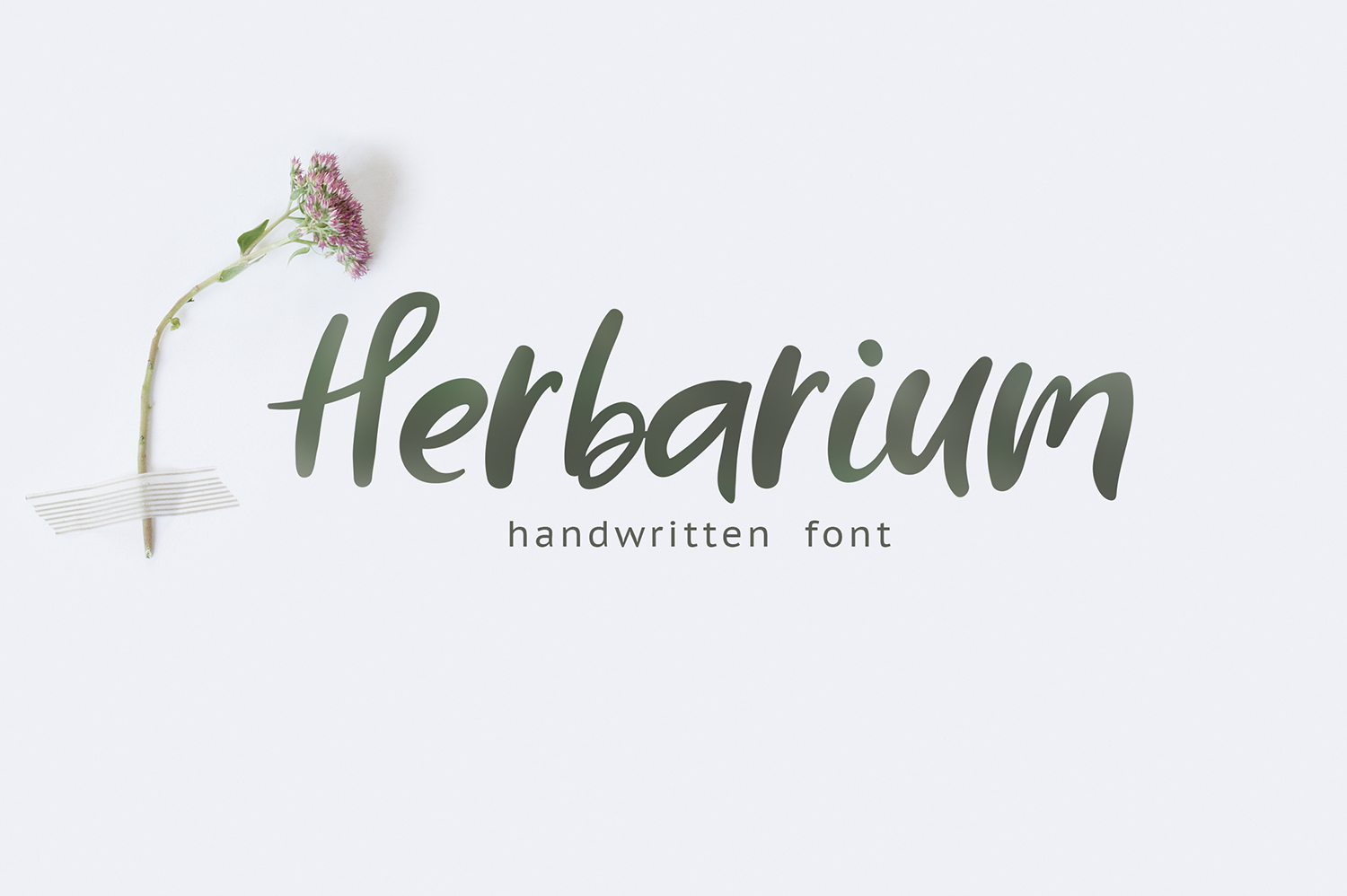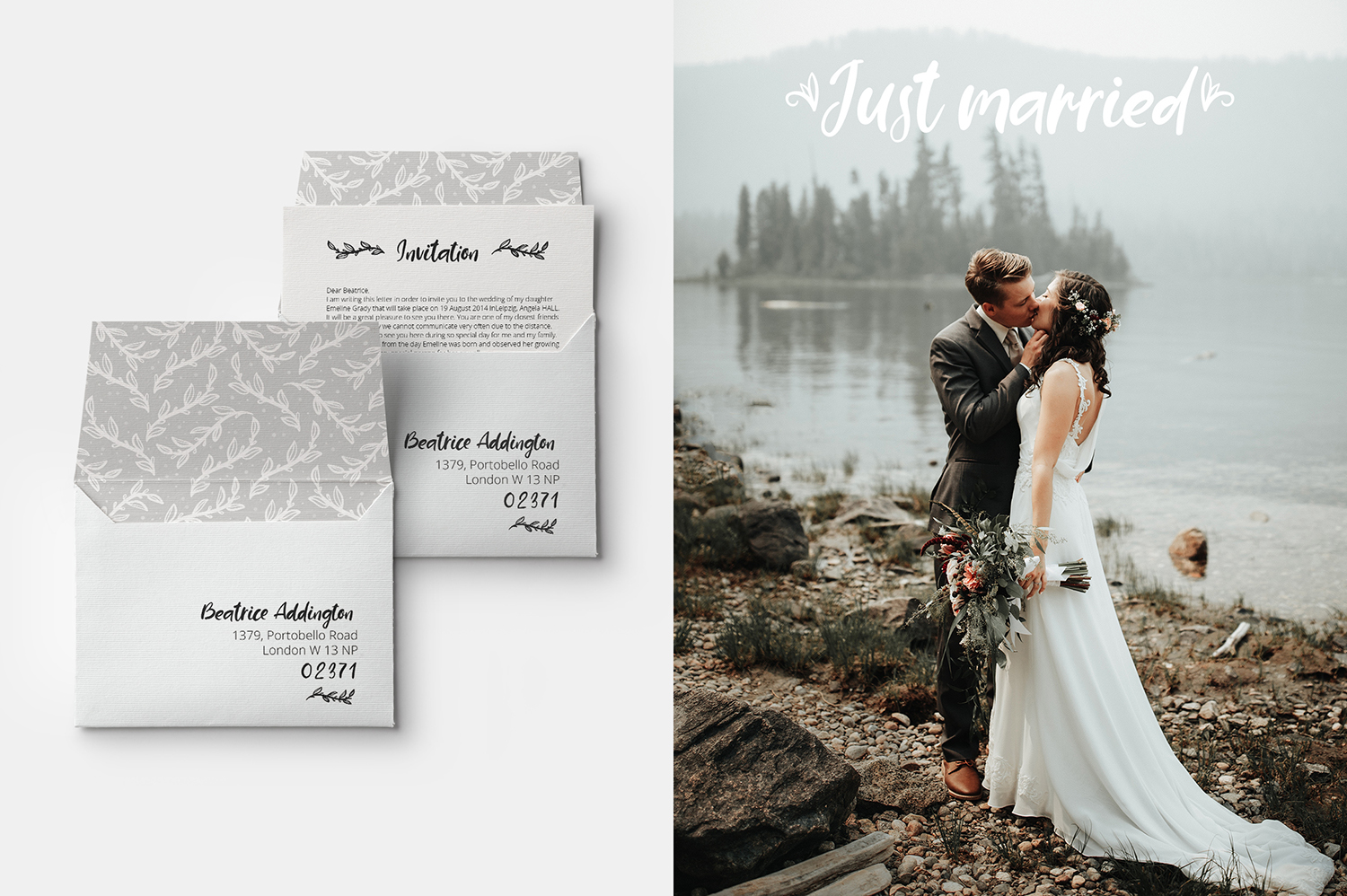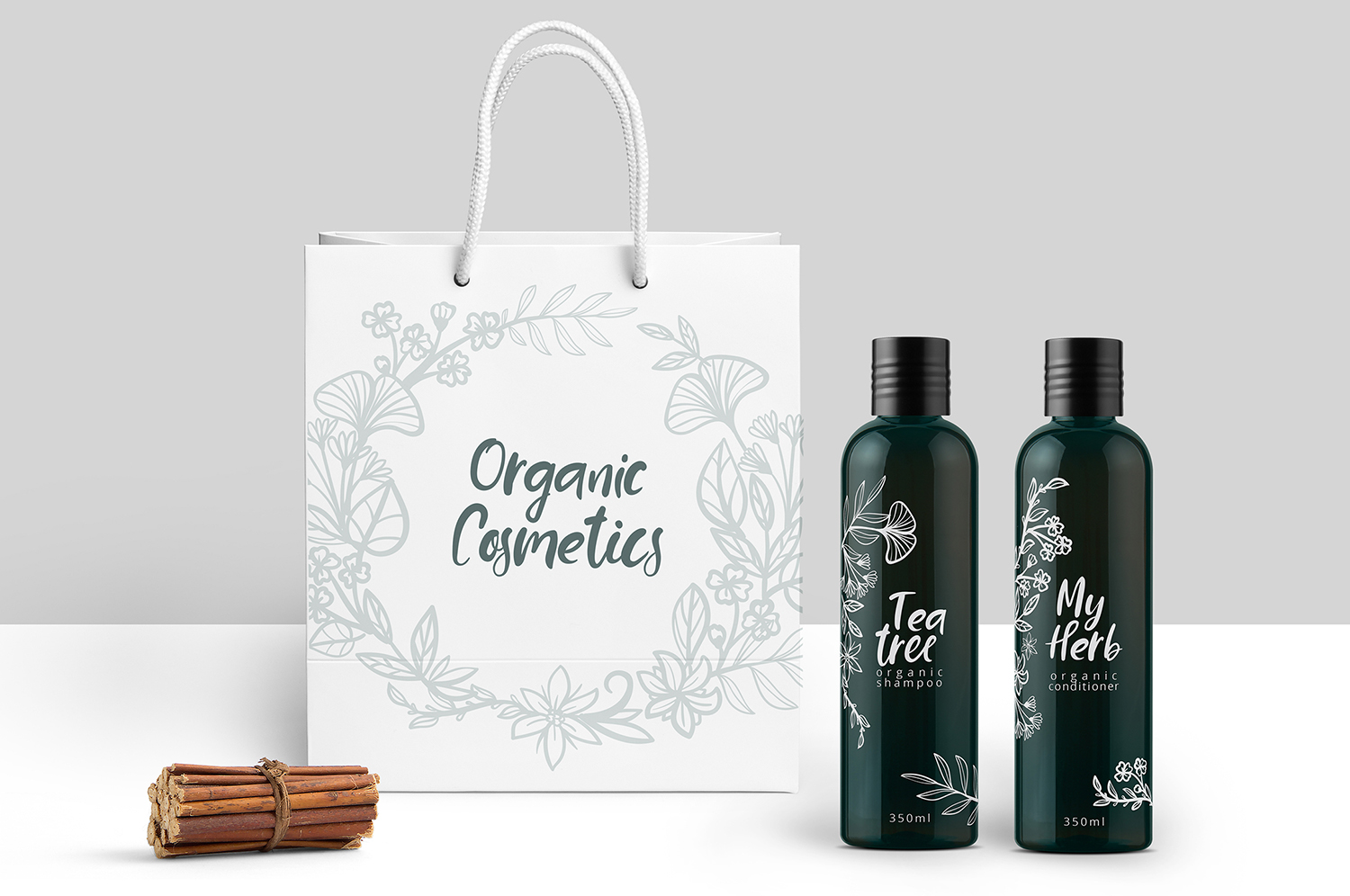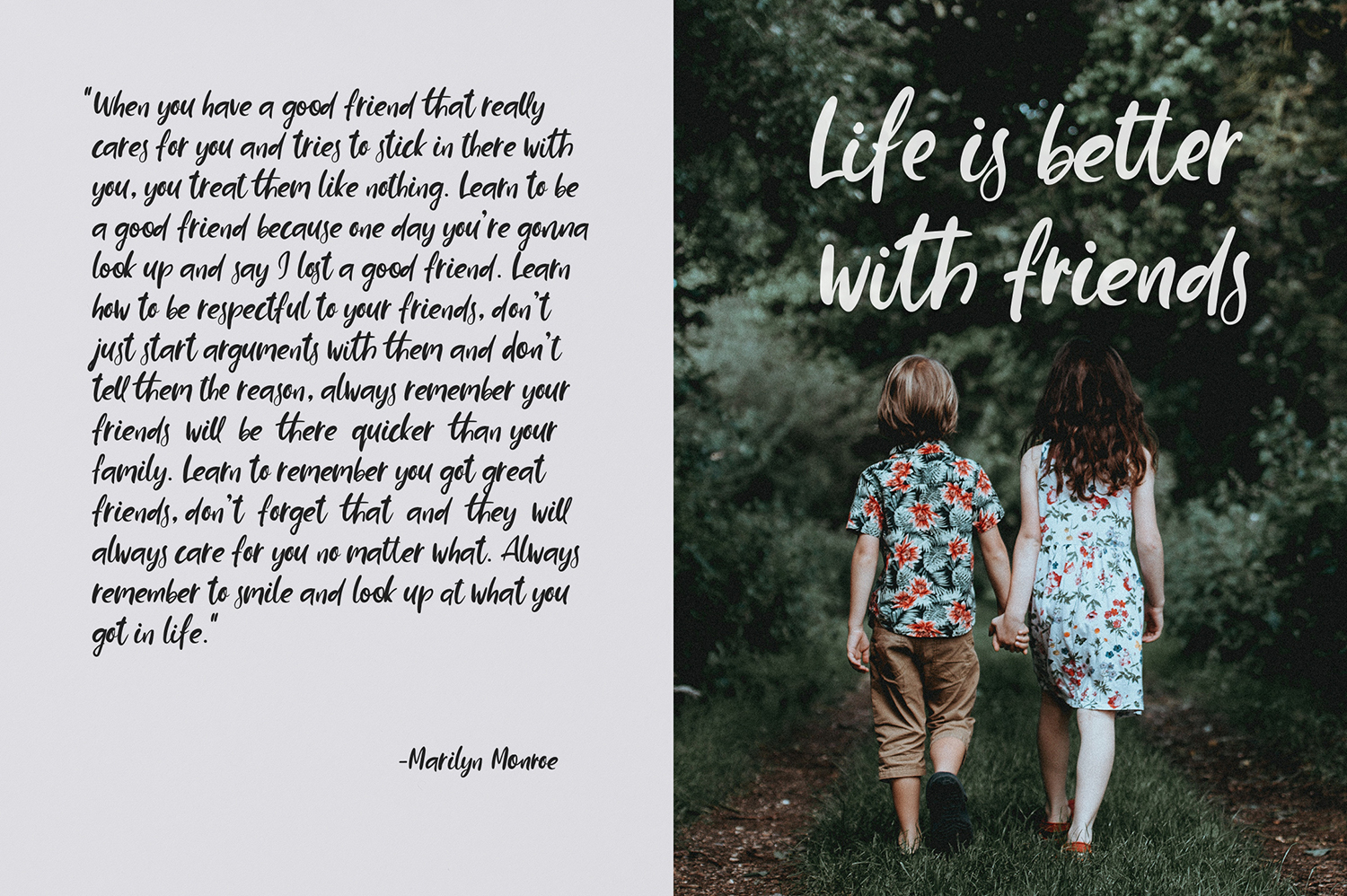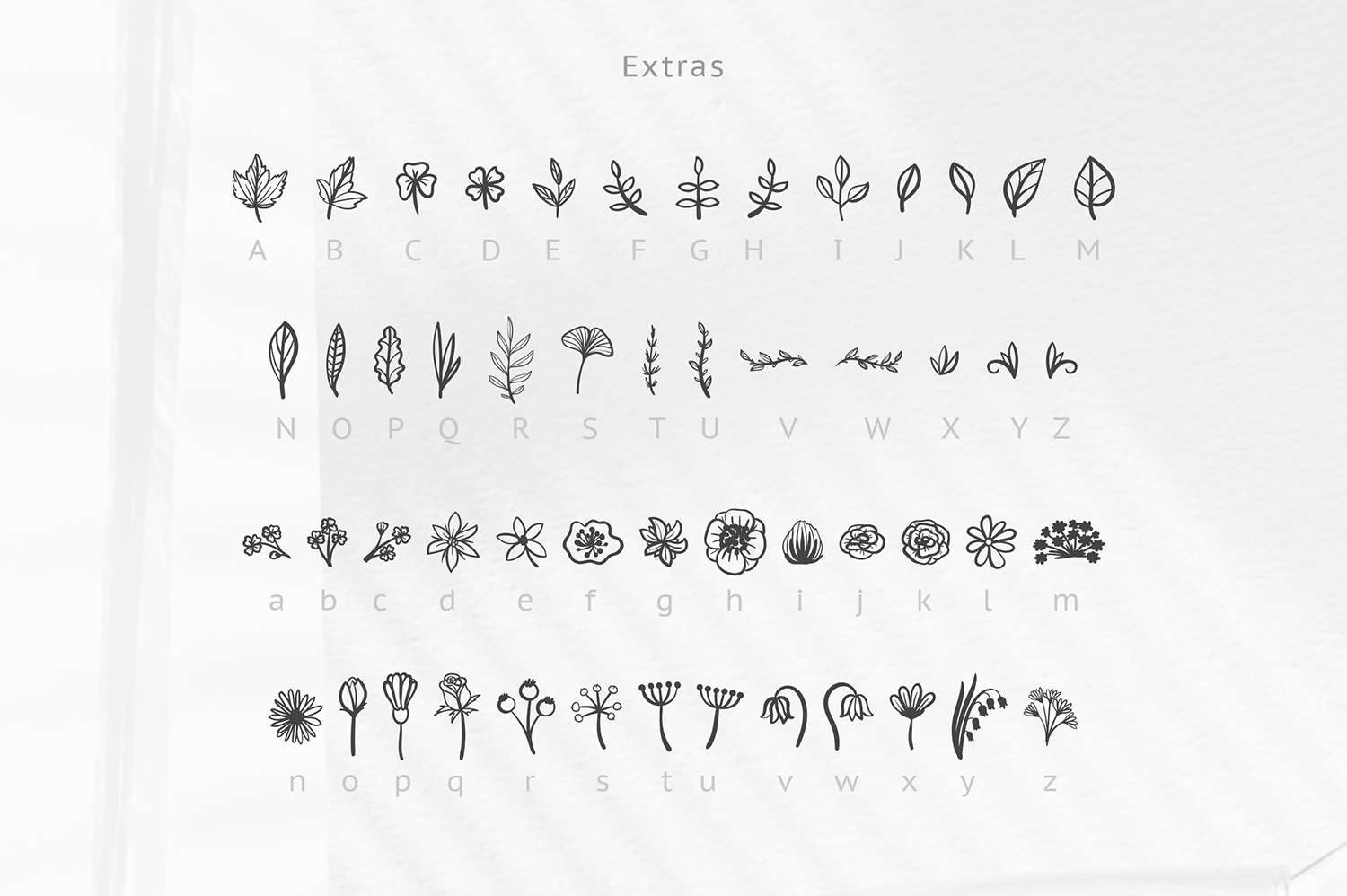
Herbarium Free Font
Herbarium Free Font is a handwritten font that features an elegant calligraphic style and a set of alternate lowercase letters to help make your text look realistic. This font will help you create unique design projects and improve your professional level. Use this font to create memorable posters, wedding invitations, cards, branding, flyers, and more. Improve the quality and increase the popularity of your design projects by using this font. If you like it don’t forget to check out the full version.